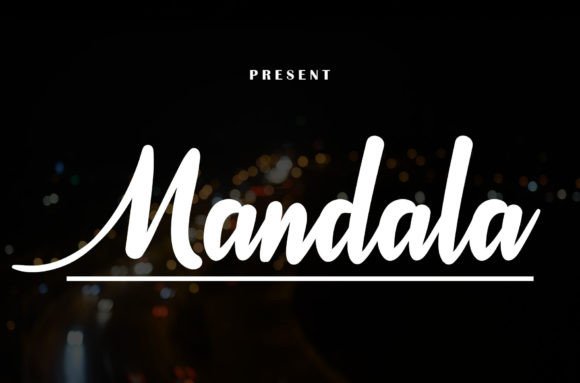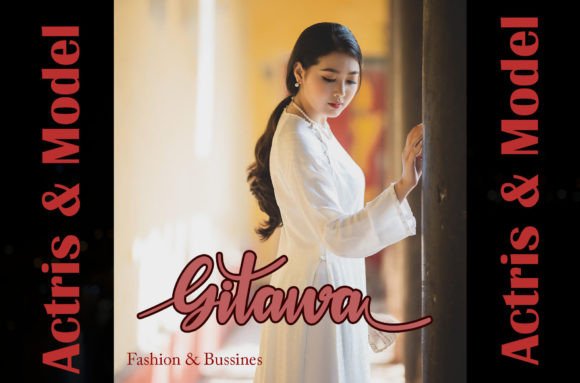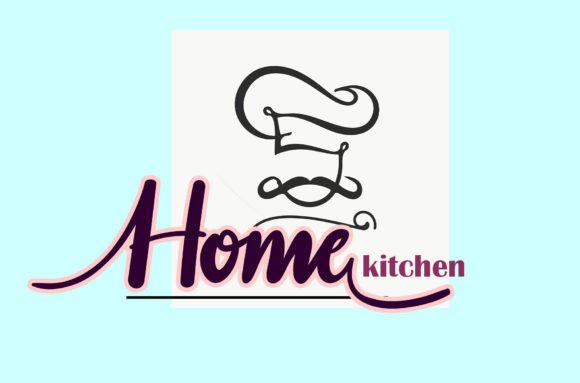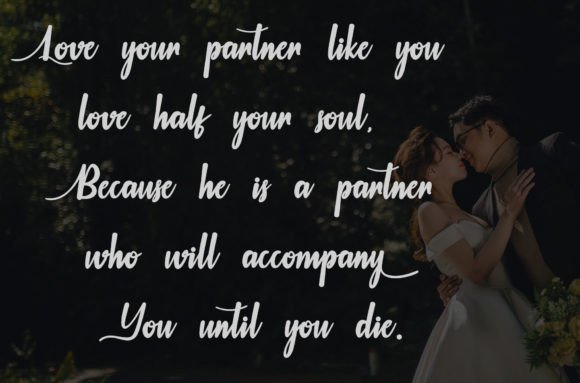
About Mandala Font
Mandala is slick and fashionable handwriting font! Whether you’re creating a stylish and trendy visual or a clean classic design, its bold and italic style will make it stand out even more, this font will make a fantastic addition to your projects. This font is PUA encoded, which means you can access all of the glyphs and swashes with ease!